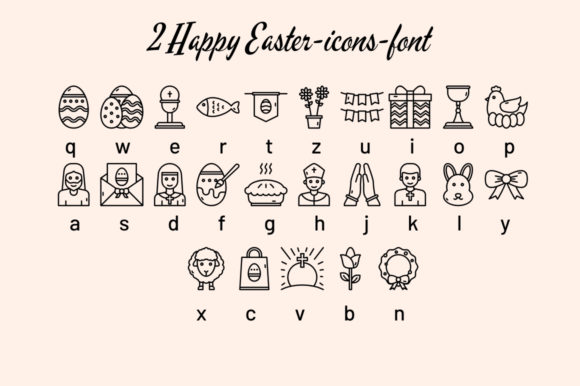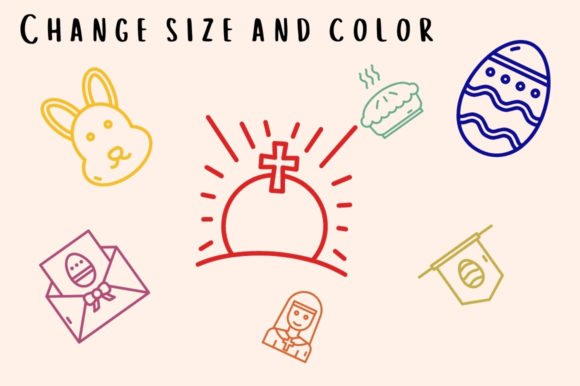
Hop into Creativity with Happy Easter Icons Font
Are you looking for a fun and festive way to add some Easter cheer to your designs? Look no further than the Happy Easter Icons Font! This adorable dingbats font is packed with Easter-themed icons that are sure to make your creations stand out. In this article, we’ll dive into the world of Happy Easter Icons Font and explore the many ways you can use it to elevate your designs.
What is Happy Easter Icons Font?
Happy Easter Icons Font is a unique and charming dingbats font that features a wide range of Easter-themed icons. From cute bunnies and eggs to colorful flowers and Easter baskets, this font has everything you need to add a touch of Easter magic to your designs. The font is perfect for use as borders, dividers, and frames on your website, invitations, home decor products, or any other creative project.
Key Features of Happy Easter Icons Font
- Easter-themed icons: The font features a wide range of Easter-themed icons, including bunnies, eggs, flowers, and more.
- Cute and playful design: The icons are designed to be cute and playful, making them perfect for Easter-themed designs.
- Versatile: The font can be used for a wide range of design projects, from websites and invitations to home decor products and more.
Ways to Use Happy Easter Icons Font
There are countless ways to use Happy Easter Icons Font in your designs. Here are a few ideas to get you started:
- Website design: Use the font as borders, dividers, and frames on your website to add a touch of Easter cheer.
- Invitations: Add a personal touch to your Easter invitations with the Happy Easter Icons Font.
- Home decor: Use the font to create custom home decor products, such as Easter-themed pillows, tote bags, and more.
- Print on demand: Add the font to your print on demand products, such as mugs, t-shirts, and phone cases.
- Social media graphics: Use the font to create eye-catching social media graphics for Easter.
Benefits of Using Happy Easter Icons Font
Using Happy Easter Icons Font in your designs offers a range of benefits, including:
- Unique and festive designs: The font allows you to create unique and festive designs that will stand out from the crowd.
- Versatile: The font can be used for a wide range of design projects, making it a great addition to your design toolkit.
Tips for Using Happy Easter Icons Font
Here are a few tips for using Happy Easter Icons Font in your designs:
- Experiment with different colors: Try out different colors and color combinations to find the perfect look for your design.
- Mix and match icons: Combine different icons to create unique and interesting designs.
- Use the font as a border or frame: Use the font as a border or frame to add a touch of Easter cheer to your design.
- Don’t be afraid to get creative: The Happy Easter Icons Font is a versatile tool, so don’t be afraid to experiment and try new things!
In conclusion, Happy Easter Icons Font is a fun and festive dingbats font that’s perfect for adding a touch of Easter cheer to your designs. With its wide range of Easter-themed icons, cute and playful design, and ease of use, this font is a great addition to any designer’s toolkit. Whether you’re designing for a website, invitation, home decor product, or social media graphic, Happy Easter Icons Font is sure to make your creations stand out. So why not hop into creativity and give Happy Easter Icons Font a try today?